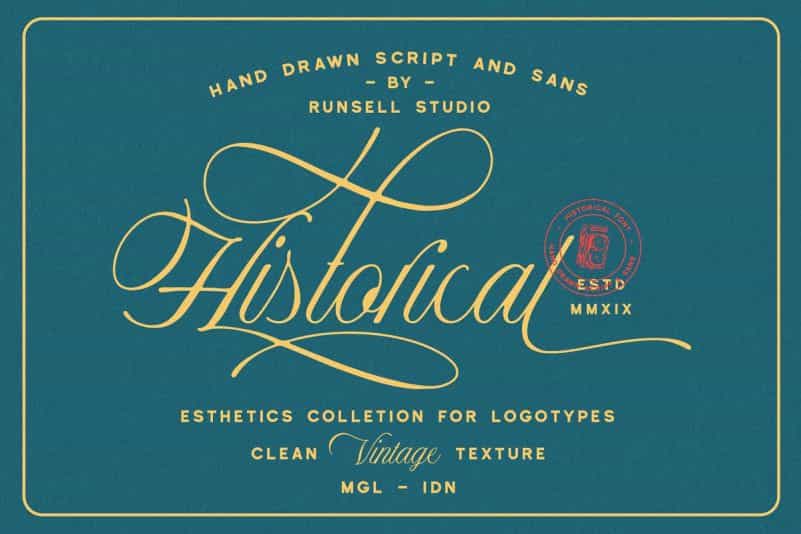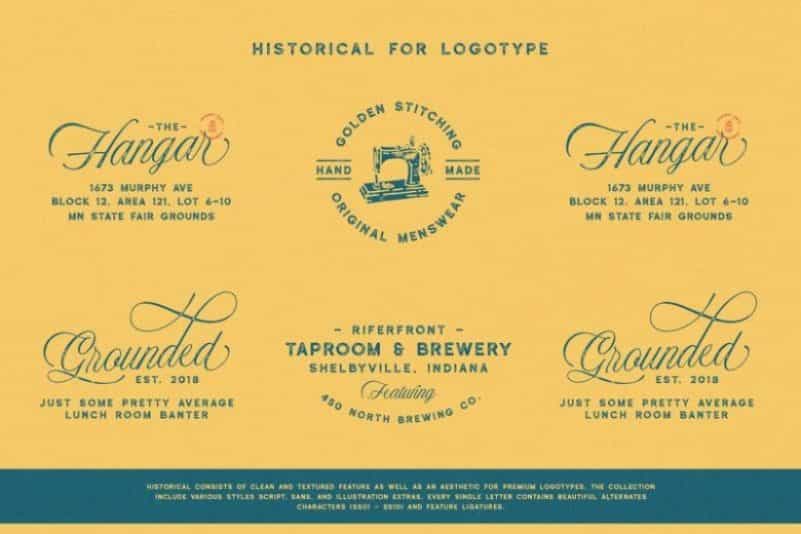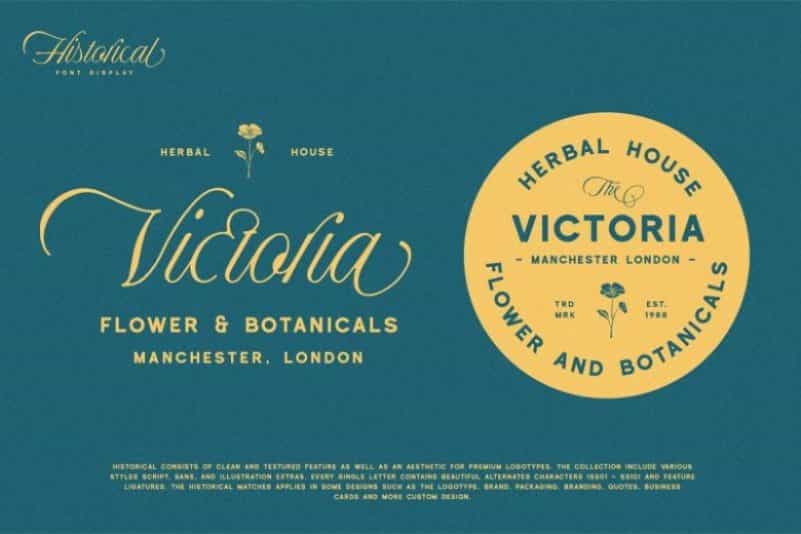
Historical Font is a blend of an elegant sans-serif font and beauty calligraphy script font which represents the real writing style. This font has rather sleek lines and very smooth outline which makes this font suitable for delivering the modern style. It’s created by Runsell Studio and it is free to use. It has a clean and textured feature and an aesthetic for Premium Logotypes.